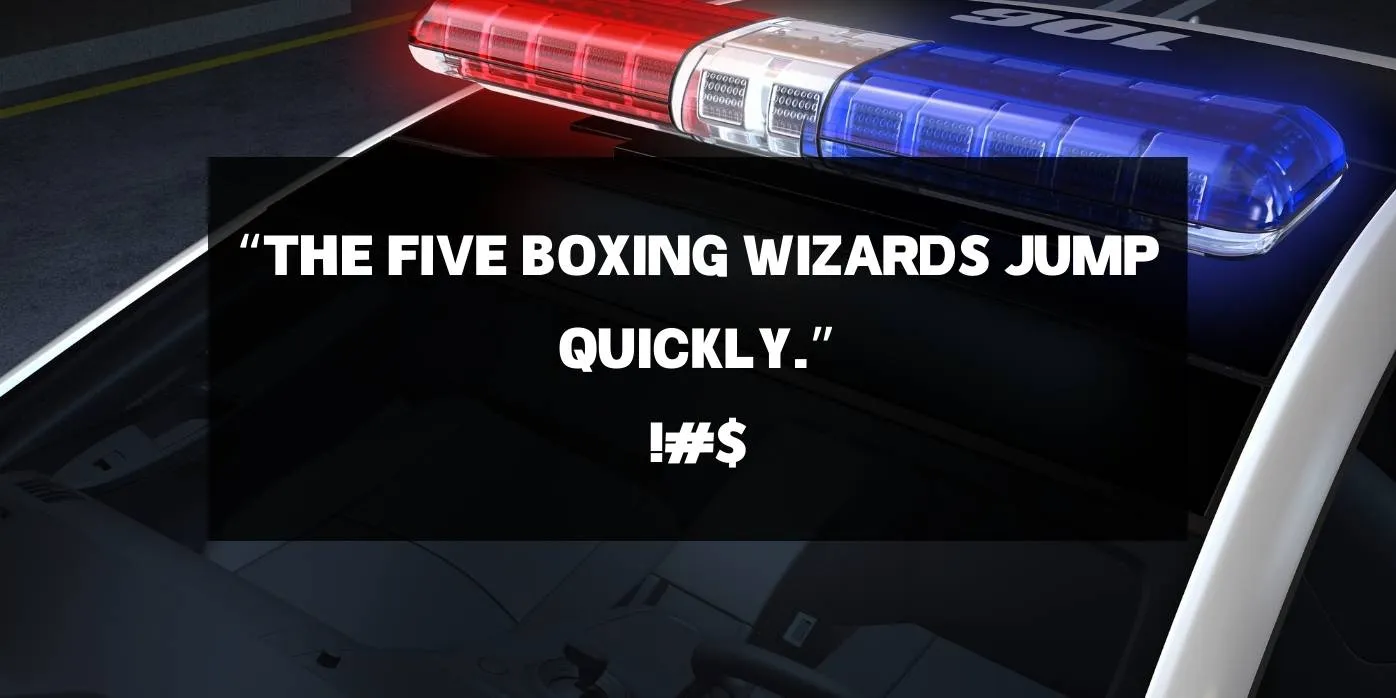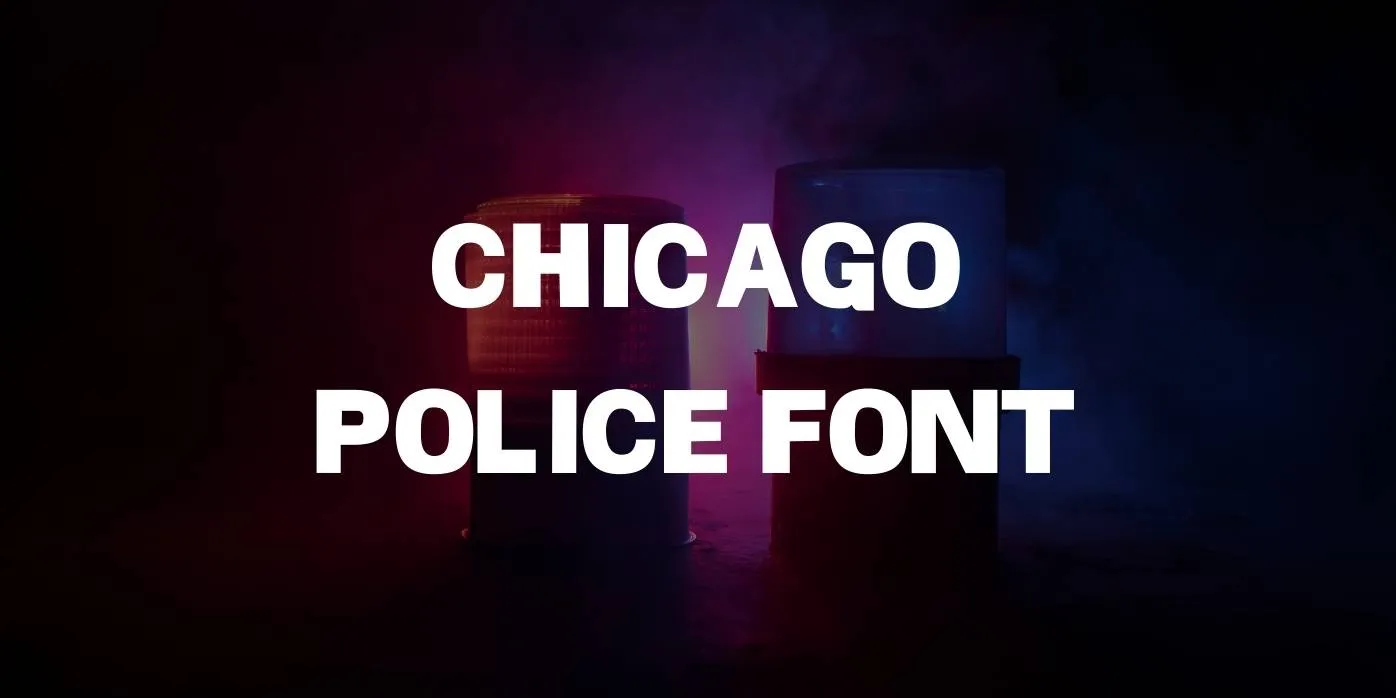
Chicago Police Font
Chicago Police Font is a modern typeface that was designed by Font Monger. It belongs to the Sans Serif font family. The design of this font was inspired by the lettering used on the Chicago Police Department’s vehicles. This typeface is perfect for creating headlines and short texts that need to be attention-grabbing.